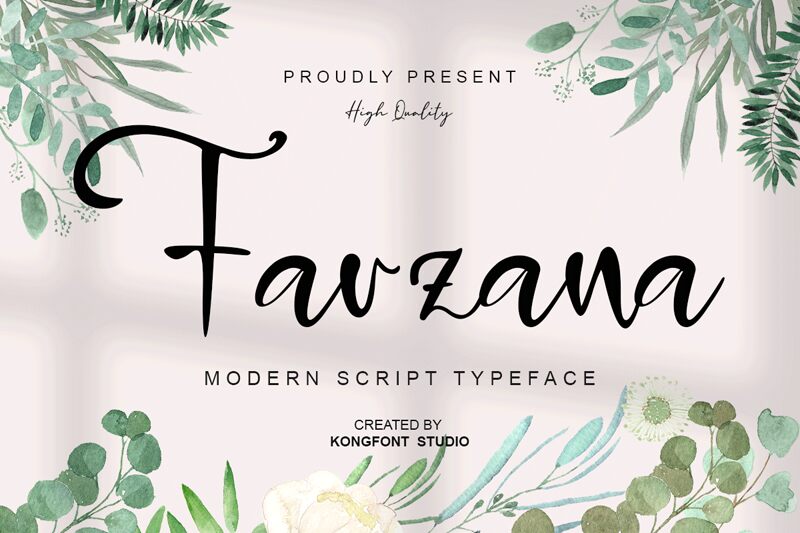
Farzana
Farzana, the latest handwritten font typeface designed by Kong Font, is the perfect addition to your creative projects. Its semi-light weight makes it ideal for creating artistic designs that are both elegant and playful. This versatile font style is suitable for a wide range of projects, including logo design, invitations, social media graphics and more. With its unique and personalized touch, Farzana's handwritten style adds a touch of warmth and personality to any design. Whether you're looking for a sophisticated look or something fun and quirky, Farzana is the perfect choice to bring your vision to life.